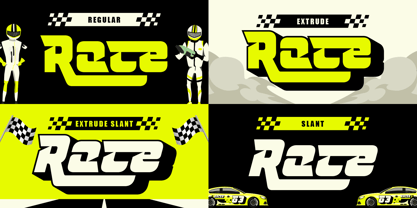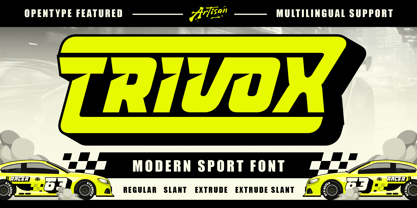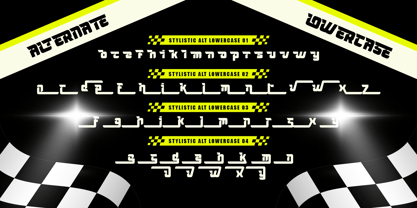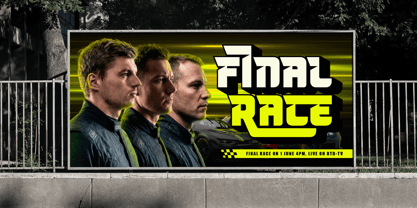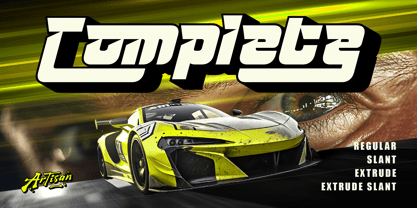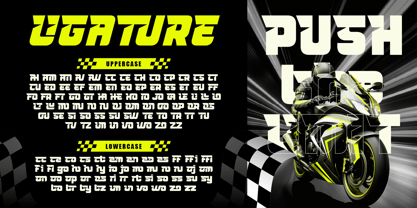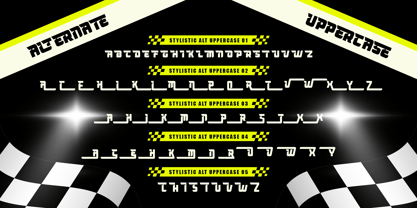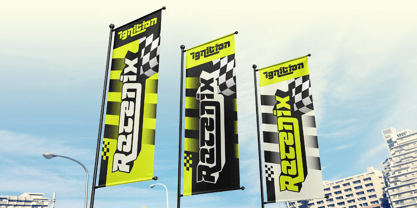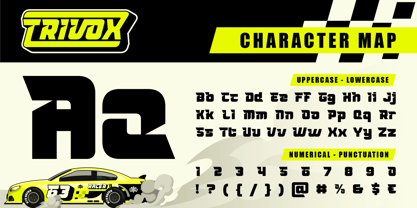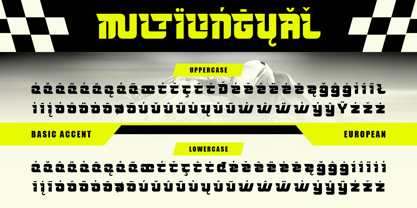
Trivox
The Trivox Font Family was designed by Meidy Meichico and published by Artisan Themes. Trivox contains 4 styles and family package options. More about this family
Let’s feel the adrenaline of roaring engines, the blur of neon lights, and the intensity of a high-speed race where every second matters. Trivox is born from that energy, a bold and aggressive modern sport font designed to bring speed, power, and futuristic vibes into your designs.
Inspired by racing culture, motorsport graphics, and high performance branding, Trivox features sharp angles, strong geometry, and dynamic letterforms that instantly create a sense of motion. Whether you're designing for esports, automotive brands, racing events, or futuristic posters, this font delivers impact at first glance.
Trivox is not just about speed, it’s about dominance. Its unique structure and stylized alternates give you the flexibility to create eye-catching headlines, logos, and visual identities that stand out in competitive markets.
Perfect For: Racing & Motorsport Design, Esports & Gaming Branding, Automotive Posters & Wrap Design, Streetwear & Urban Apparel, YouTube Thumbnails & Content Creators, Bold Logo & Headline Design
Features: A - Z set (Uppercase & Lowercase), Number, Punctuation, Alternates, Ligatures Multilingual